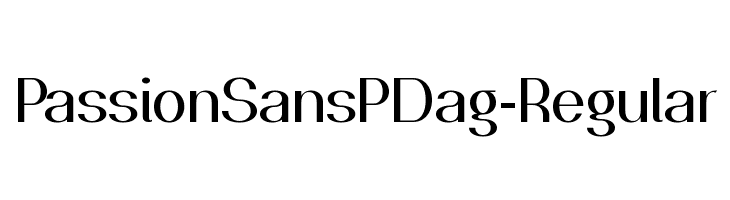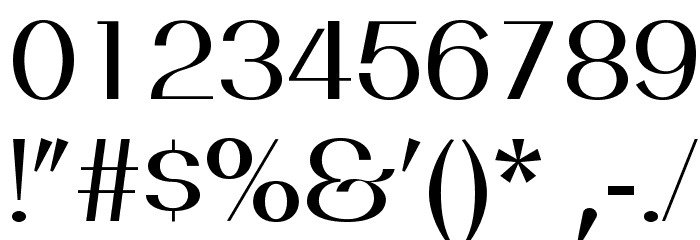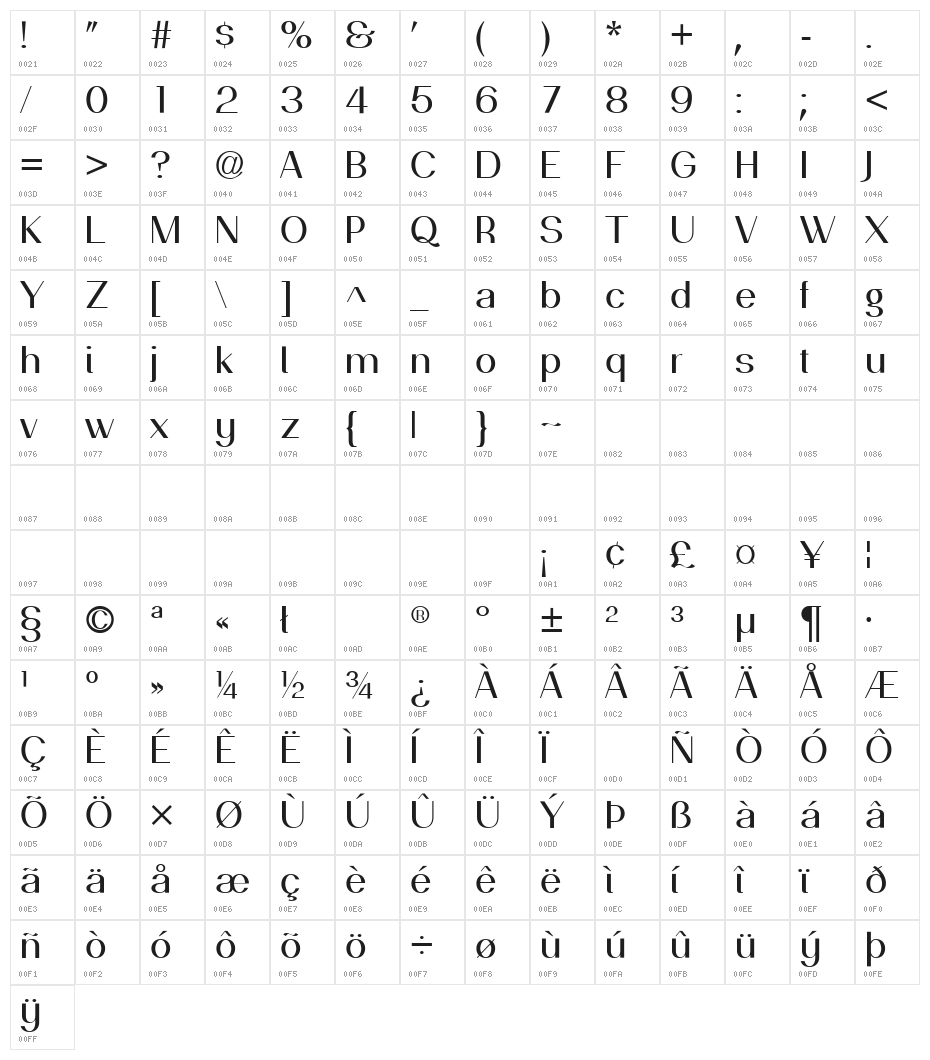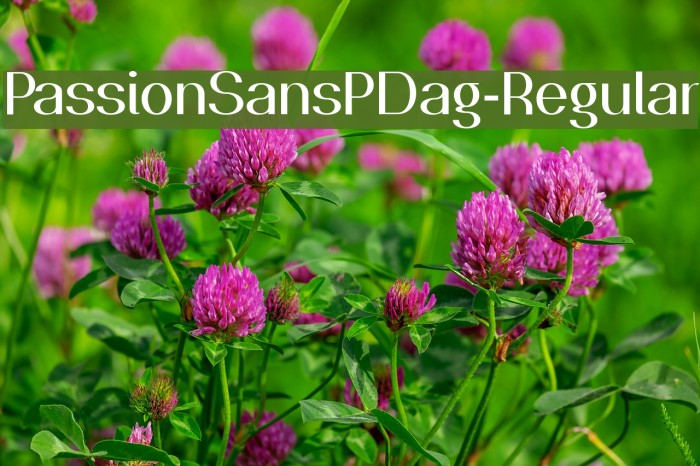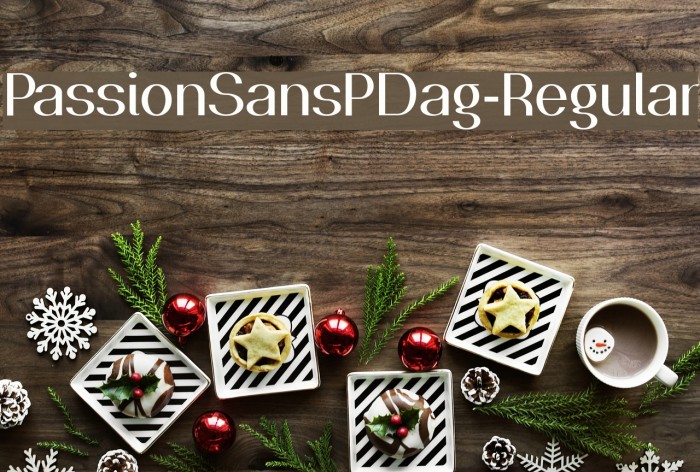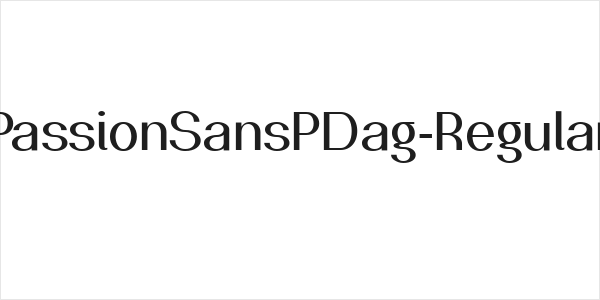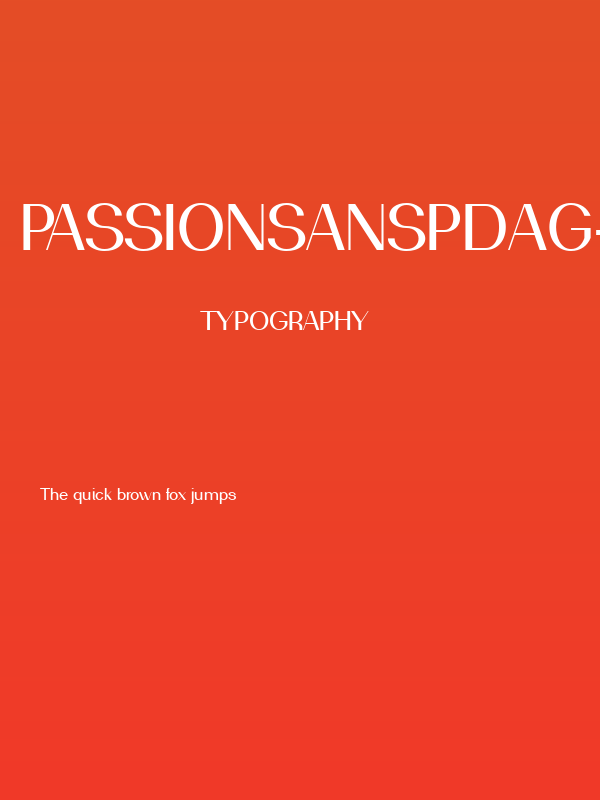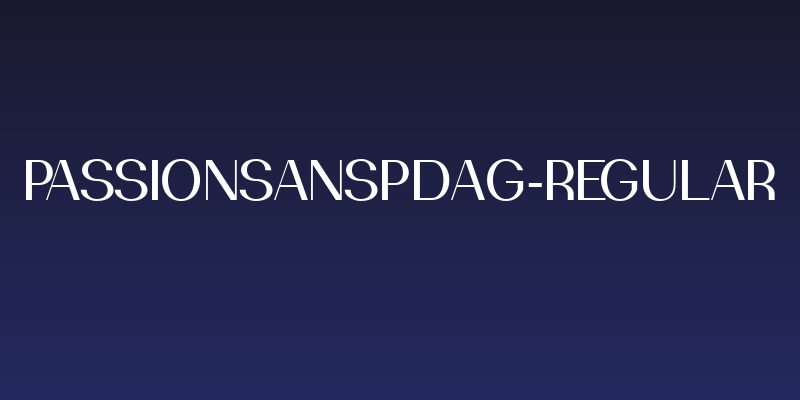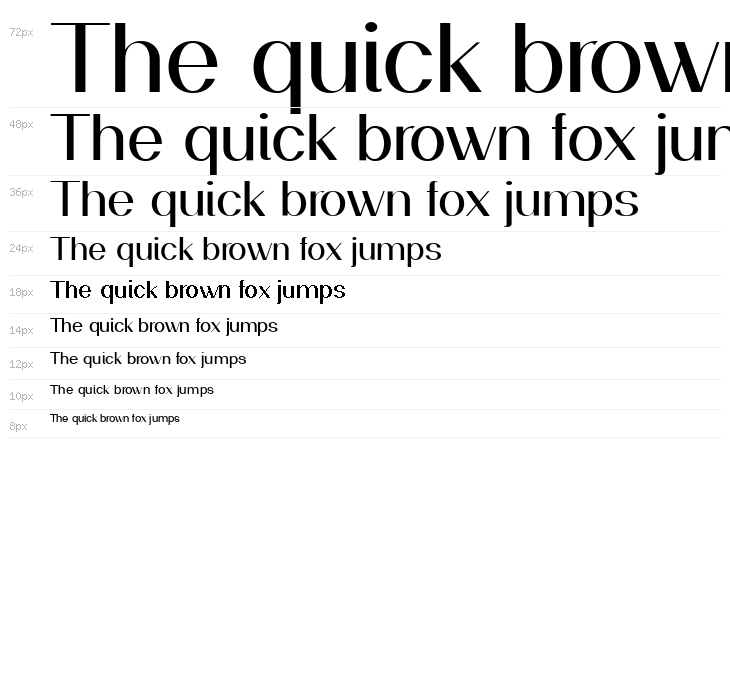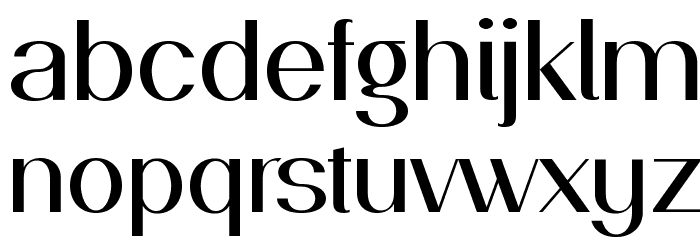
PassionSansPDag-Regular Font
PassionSansPDag-Regular Description
This font features a clean and modern sans-serif style with a geometric influence. The characters are well-balanced with a slight contrast in stroke thickness, giving it a sophisticated appearance. The uppercase letters are bold and commanding, while the lowercase letters maintain a friendly and approachable look. The numerals are clear and easy to read, making them suitable for various applications. Special characters are designed with the same attention to detail, ensuring consistency throughout the font. The overall design is versatile, making it suitable for both digital and print media.